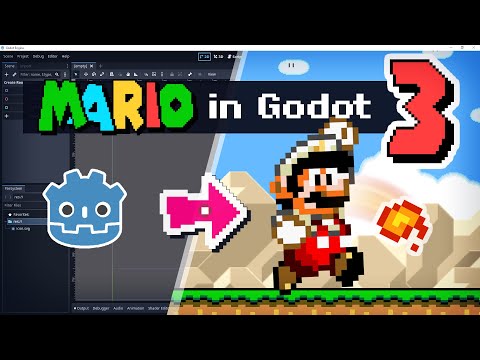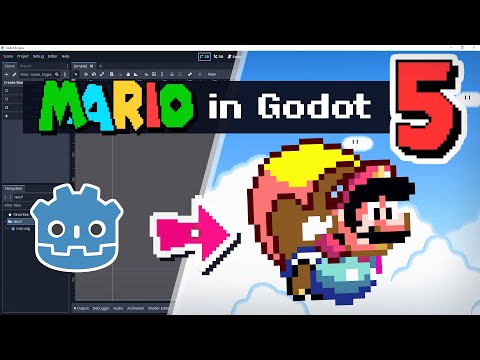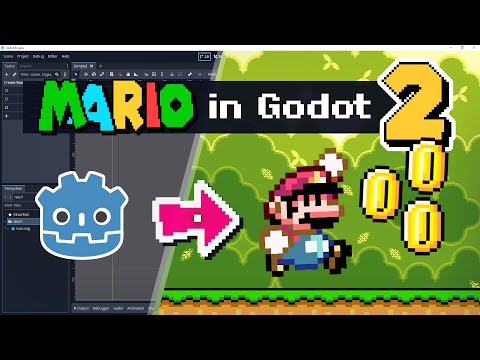
Download the Super Mario World font: Made using the Pixel Font Converter: As a side project to my "Remaking Super Mario World in Godot" series, I went and made a computer font in the style of Super Mario World - but I wasn't the first to do it. In this video, I try to explain what fonts are (in very basic terms, because that's all I know), how text worked on the SNES, how I tried to improve on the original SMW font, and how to potentially make something like that yourself. UPDATES, NOTES AND CORRECTIONS: 7:43 Not only by hand, but also by code (for the accented characters). 7:50 A version without half-pixel spacing is now available! Everything is on a nice pixel grid now. Same link as before: 8:19 After checking again, apparently neither format works with kerning out of the box? The generated font files (both TTF and OTF) just don' seem to have any kerning. (And if you select OTF in the "Output" tab, the kerning won't even apply to the preview text.) I've found that when you convert OTF to TTF (and vice versa) using an online converter such as cloudconvert, both OTF and TTF work. Chapters: 0:00 Intro 0:54 What is a font? 1:27 Pixel fonts 2:11 Fan-made fonts 3:03 The old Super Mario World font 5:06 Making my own font 8:56 How to use the font 9:12 Outro Music: Super Mario World - Ground Theme (Lofi Lia Remix): See also: Sebastian Lague's adventures in font rendering (goes into a lot more detail with a lot more knowledge on how fonts work): Paul O'Mara's video which made me aware of Calligraphr: